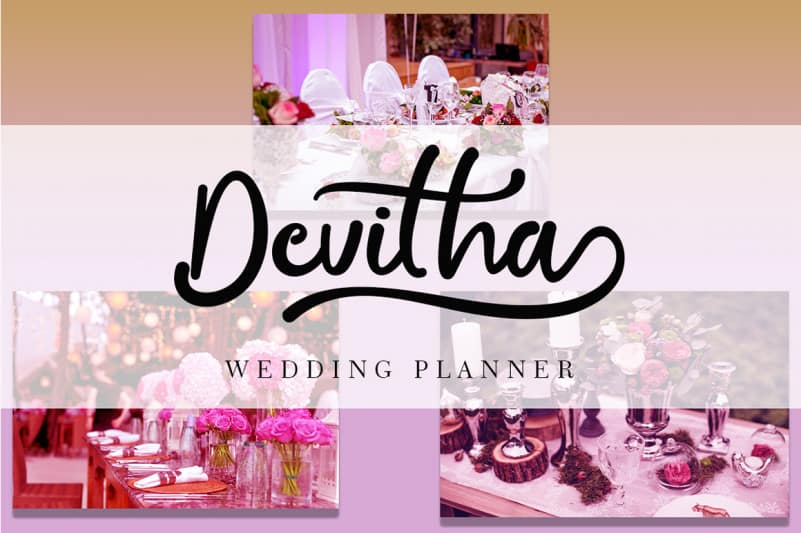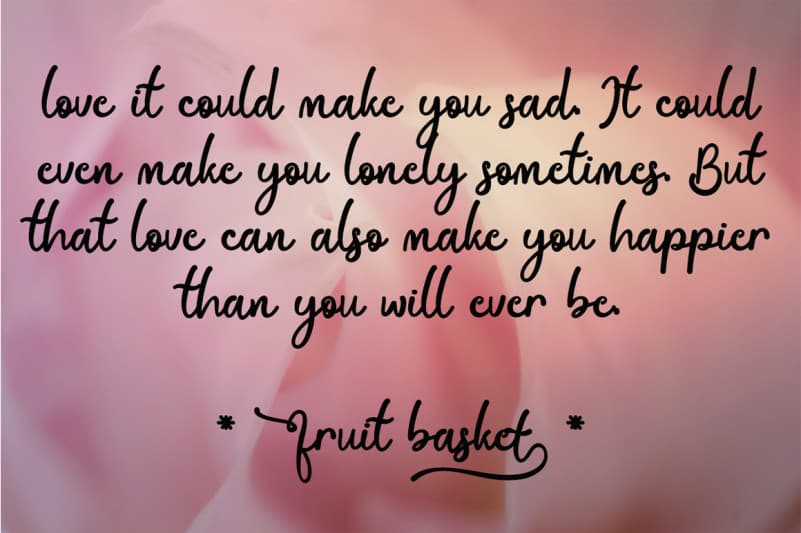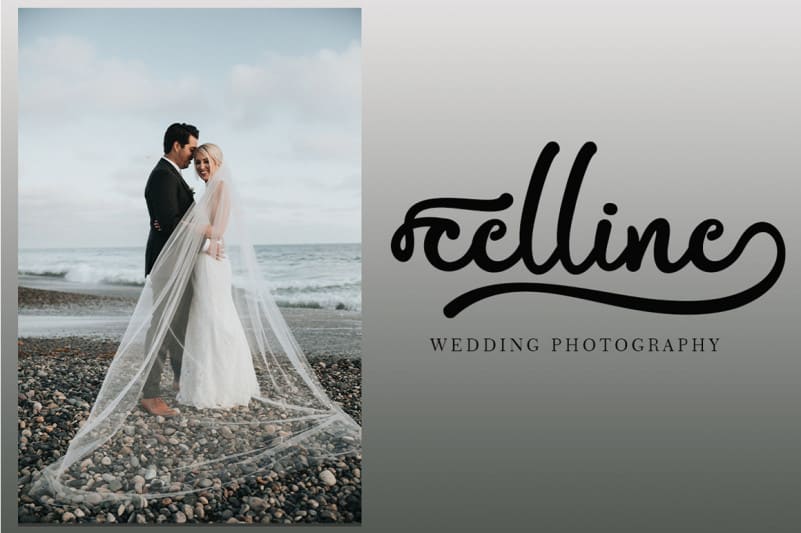
Bialletta Calligraphy Font
Bialletta Calligraphy Font is a modern handwritten font. This font is very beautiful and elegant. Besides being elegant and beautiful, this font is also very unique and can improve the quality of your work. This font is perfect for all types of work. It is suitable for wedding designs, branding, invitations, signatures, labels, logos, capture your beautiful moments on social media, your business promote, and more.